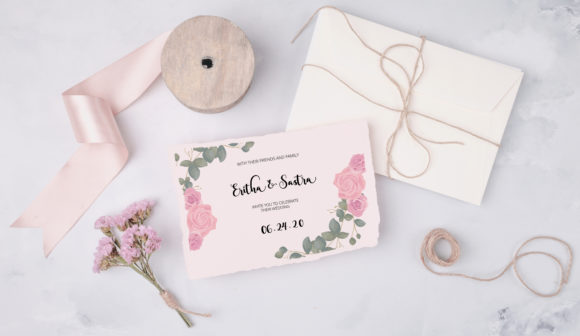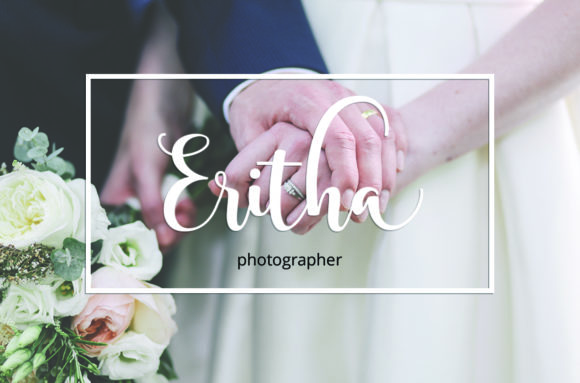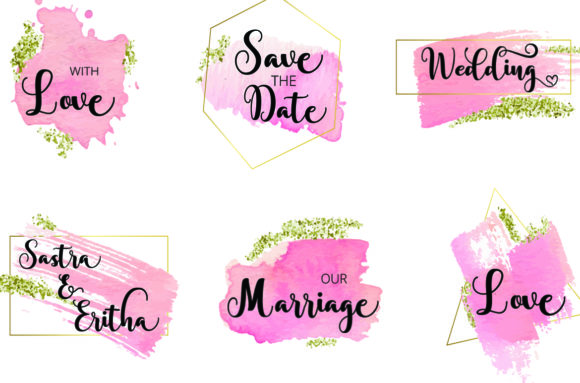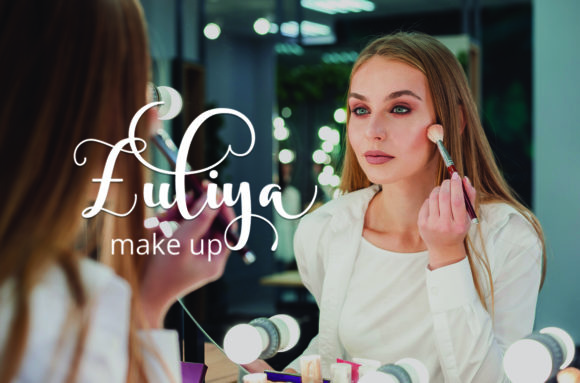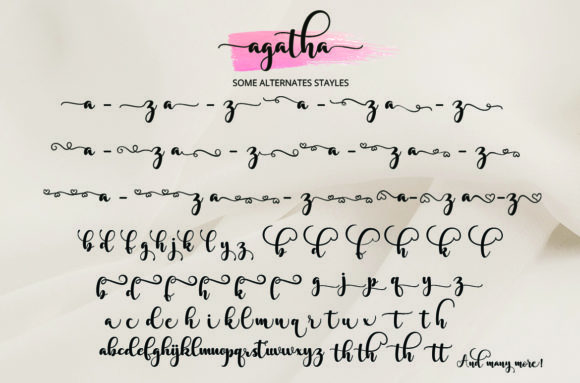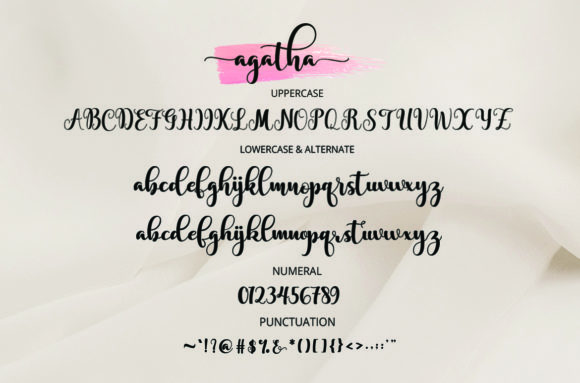
Discover the Elegance of Agatha Font: A Timeless Handwritten Script
Are you searching for a font that exudes elegance, sophistication, and a touch of timeless charm? Look no further than the Agatha Font. This beautiful, handwritten script is perfect for designers and crafters looking to add a touch of luxury to their projects. In this article, we’ll dive into the features, benefits, and uses of the Agatha Font, and explore why it’s a must-have for anyone looking to elevate their design game.
What is Agatha Font?
Agatha Font is a stunning, handwritten script that boasts a timeless and elegant feel. With its PUA (Private Use Area) encoding, accessing glyphs and swashes is a breeze, allowing you to unleash your creativity and add a personal touch to your designs. The font features a varying baseline, smooth lines, gorgeous glyphs, and stunning alternates, making it incredibly versatile and perfect for a wide range of projects.
Key Features of Agatha Font
- PUA Encoded: Easy access to glyphs and swashes for added creativity and flexibility.
- Varying Baseline: Adds a touch of organic, handwritten charm to your designs.
- Smooth Lines: Ensures a smooth, professional finish, even at small font sizes.
- Gorgeous Glyphs: Includes a range of beautiful glyphs to enhance your designs.
- Stunning Alternates: Offers a variety of alternate characters to add visual interest and personality to your text.
Uses for Agatha Font
The Agatha Font is incredibly versatile, making it perfect for a wide range of projects, including:
- Wedding Invitations: Add a touch of elegance and sophistication to your wedding stationery.
- Stationary Art: Create beautiful, professional-looking stationery, including letterheads, business cards, and more.
- Social Media Posts: Elevate your social media game with eye-catching, stylish text.
- Branding and Packaging: Use Agatha Font to create stunning brand identities, packaging, and labels.
- Digital and Print Media: Perfect for use in digital and print media, including magazines, brochures, and more.
Benefits of Using Agatha Font
So why choose Agatha Font for your next project? Here are just a few benefits:
- Elegant and Sophisticated: Adds a touch of luxury and refinement to your designs.
- Versatile: Suitable for a wide range of projects, from wedding invitations to social media posts.
- Easy to Use: PUA encoding makes it simple to access glyphs and swashes.
- High-Quality: Smooth lines and gorgeous glyphs ensure a professional finish.
Tips for Getting the Most Out of Agatha Font
To get the most out of Agatha Font, try the following:
- Experiment with Glyphs and Swashes: Take advantage of the font’s PUA encoding to add unique touches to your designs.
- Mix and Match: Combine Agatha Font with other fonts and design elements to create stunning, one-of-a-kind designs.
- Pay Attention to Kerning: Adjust kerning to ensure a smooth, professional finish.
| Font Name | Agatha Font |
| Author | Fontensy |
In conclusion, Agatha Font is a timeless and elegant handwritten script that’s perfect for designers and crafters looking to add a touch of luxury to their projects. With its PUA encoding, gorgeous glyphs, and stunning alternates, this font is incredibly versatile and easy to use. Whether you’re creating wedding invitations, stationary art, or social media posts, Agatha Font is sure to elevate your design game and leave a lasting impression.